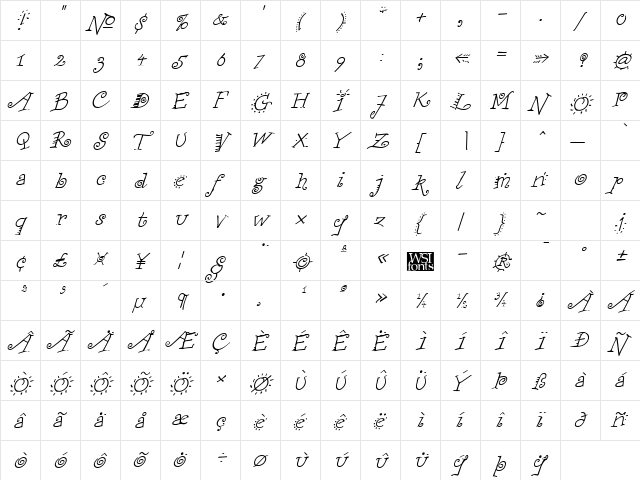
FunstuffXitalic Regular
Design Context for FunstuffXitalic Typeface
FunstuffXitalic trades formality for fun, with bouncy, characterful letterforms that bring warmth and energy to any project. Its italic angle brings a sense of urgency and motion to the letterforms.
Well-suited to food and beverage brands with personality, educational materials, and fun-forward identities.
Font Pairing: Pairs well with a rounded or humanist sans for body copy, maintaining the friendly tone without relying on FunstuffXitalic to carry extended reading.
Pro Tip: Use FunstuffXitalic at larger display sizes where its expressive character can land. Pair with a clean, simple sans for body copy to maintain readability.